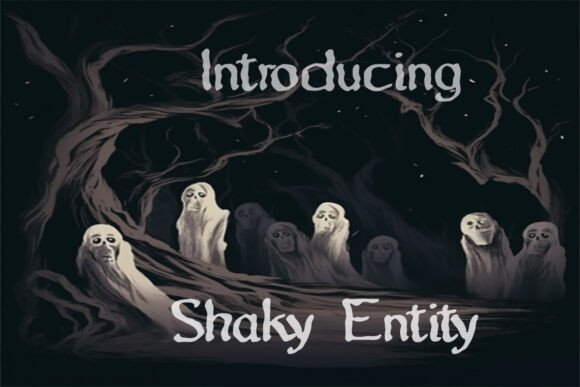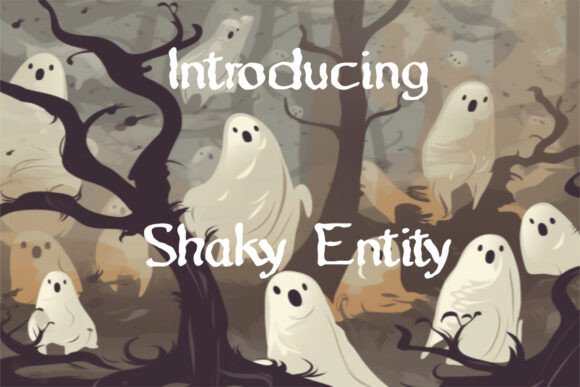
Shaky Entity Font: Spooky Display Font for Cricut & Halloween Crafts
About the Shaky Entity Font
The Shaky Entity Font is here to transform your projects with its distinctive character and style. Presenting ‘Shaky Entity’, an exceptionally versatile font. Designed with precision, it renders an artistic flair perfect for diverse projects. From enhancing the allure of shirts and stickers to creating standout branding, this font adds a unique touch. Elevate the look of magazines or give your greeting cards a distinctive charm. With Shaky Entity, transform your Cricut projects and posters into something spectacular. Moreover, it serves as an excellent choice to catch the eye on social media. Enjoy the creative freedom Shaky Entity offers and let your imagination run wild!
Shaky Entity Font Usage Examples
Shaky Entity Font Example